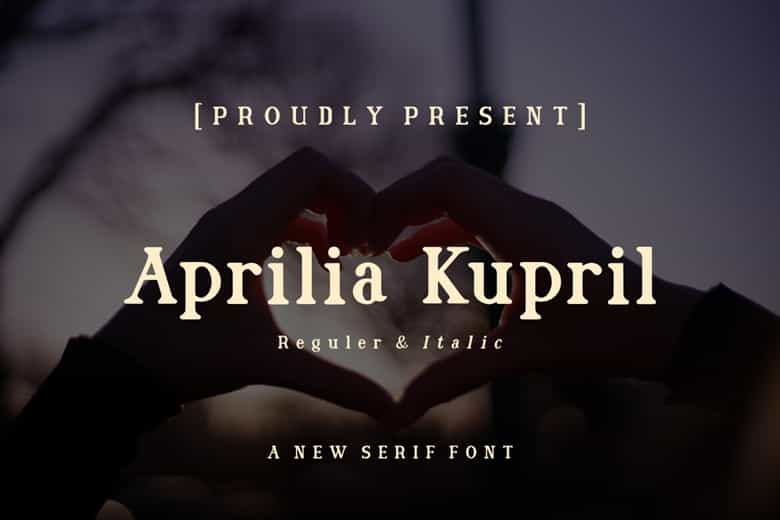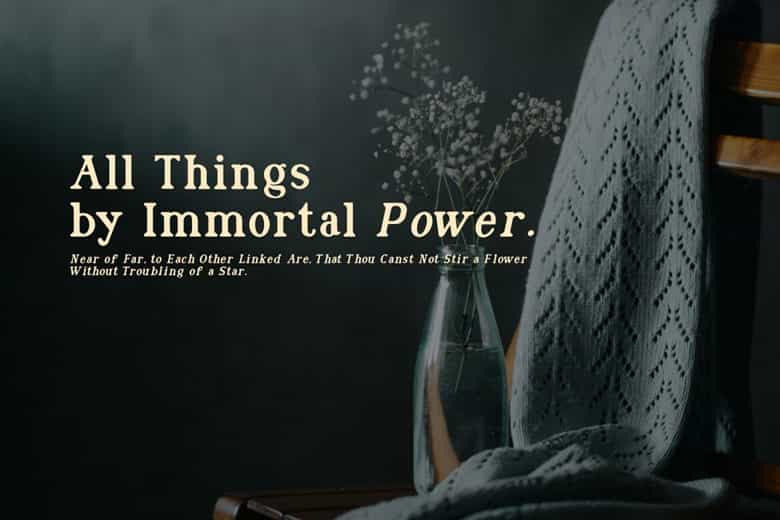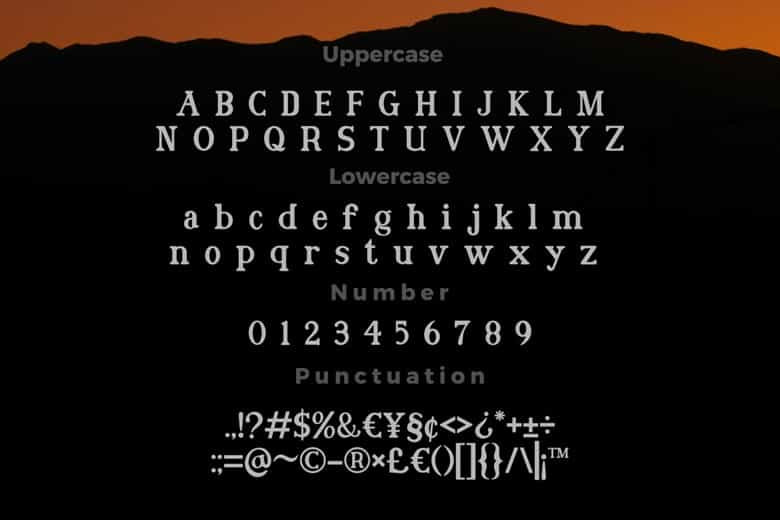
April Kupril is modern serif typography font. This font can be used on flyers, quotes, posters, banners, packaging, merchandise, logotypes and much more because this font has been blended with a high premium quality level.